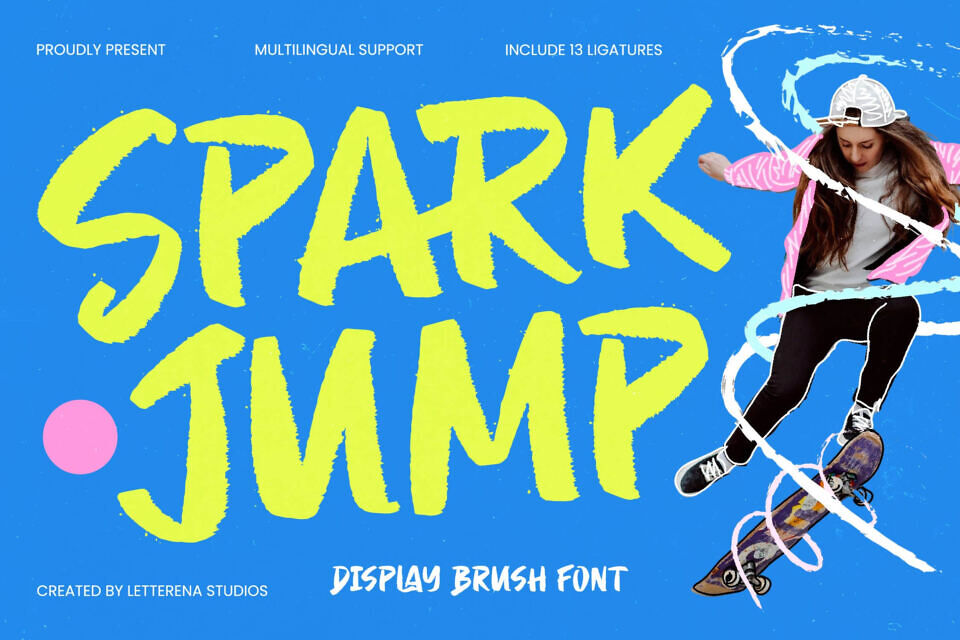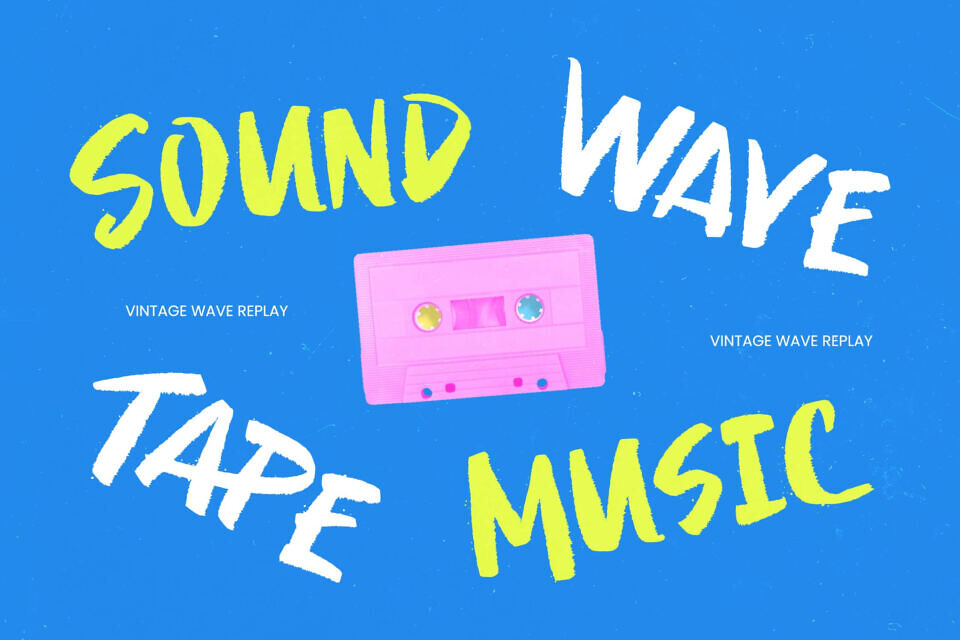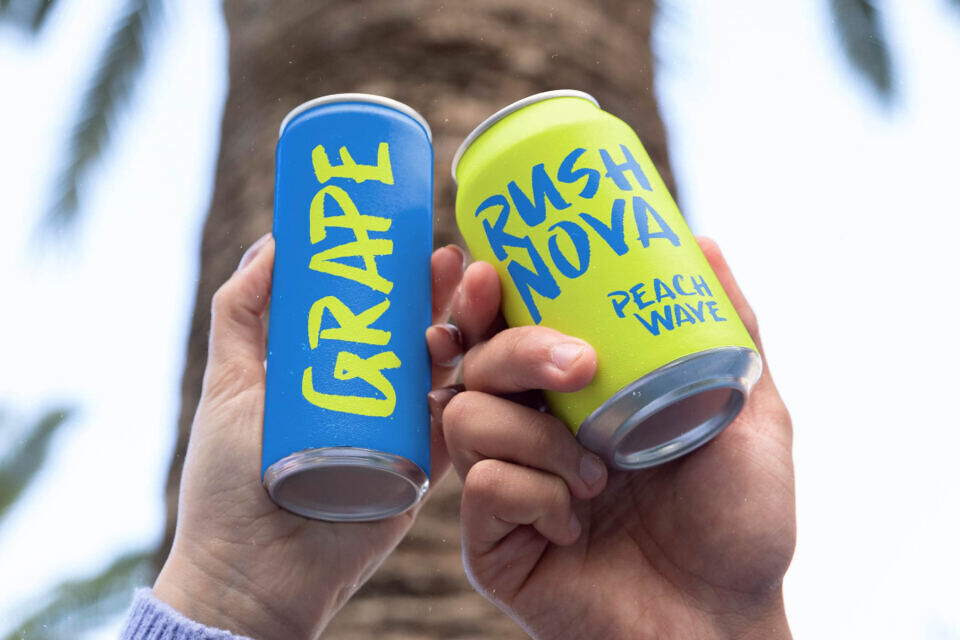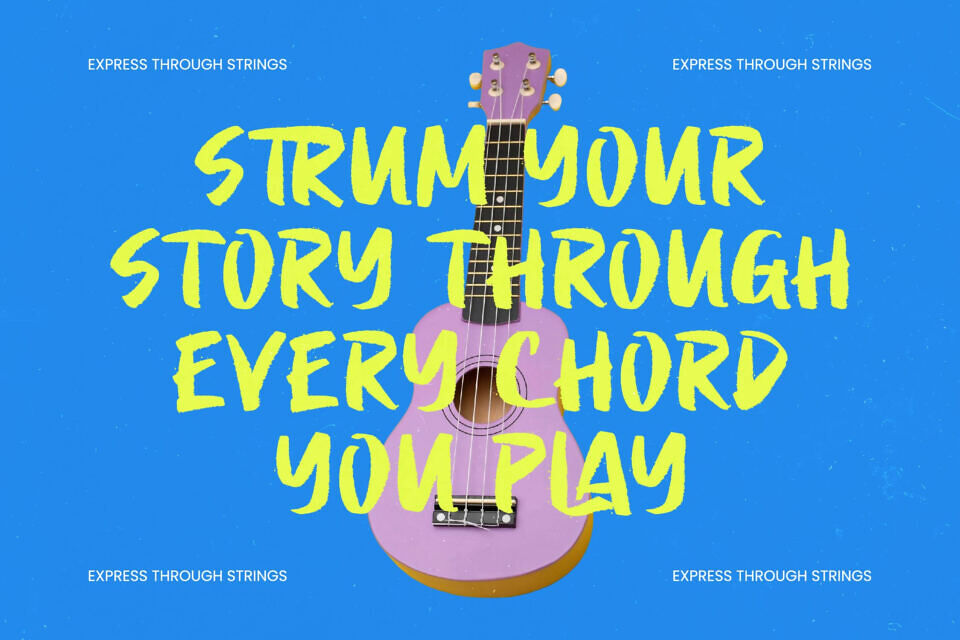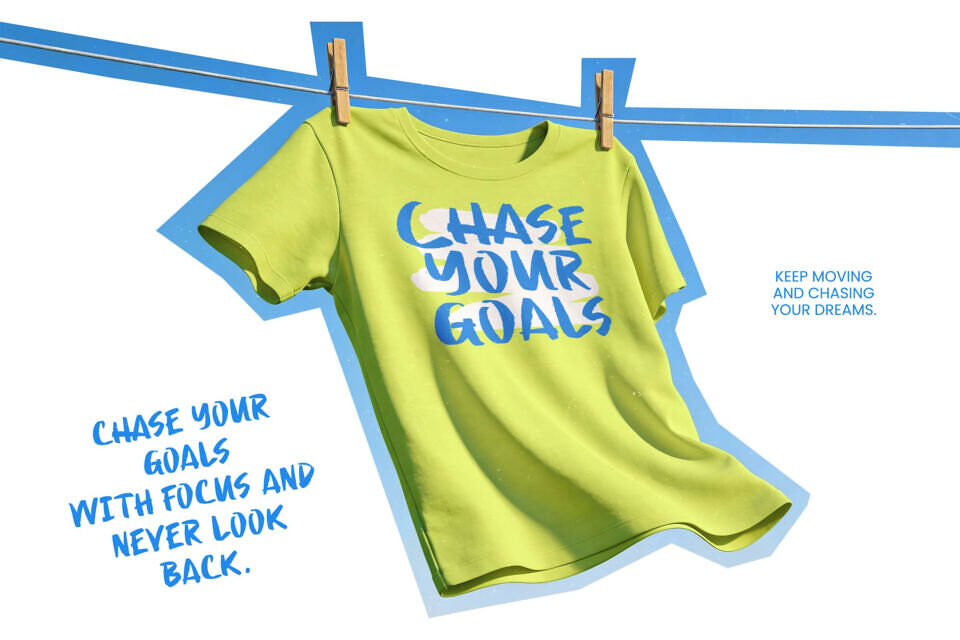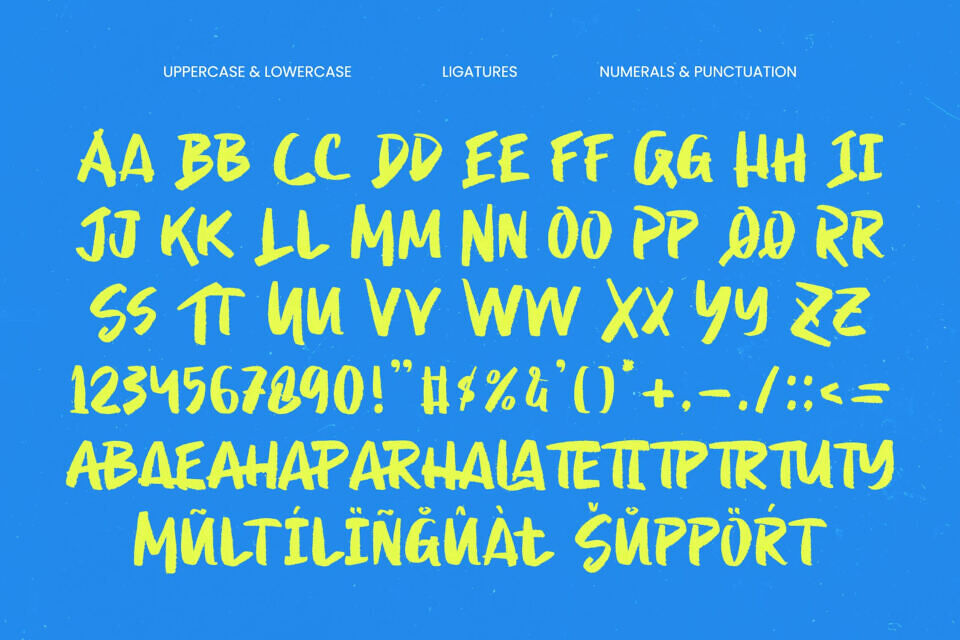
Spark Jump is a bold, attention-grabbing font that combines urban style with commercial appeal. Its dynamic strokes and handcrafted texture make it perfect for designers targeting a youthful audience. With extensive multilingual support, it’s versatile for global projects and branding campaigns.
It’s ideal for streetwear, sports graphics, and event posters, and also excels in packaging, social media, and title sequences, bringing a rugged edge to modern designs. Its unique ligatures and high-contrast strokes create a custom, hand-lettered look.